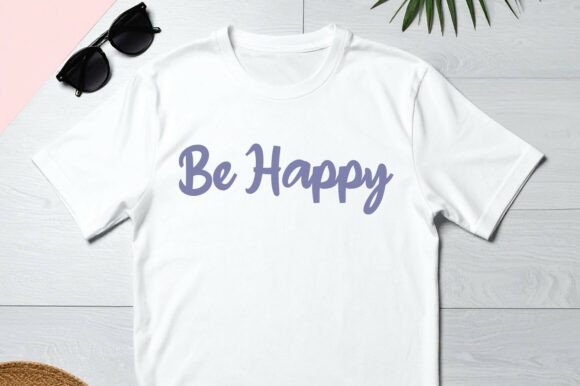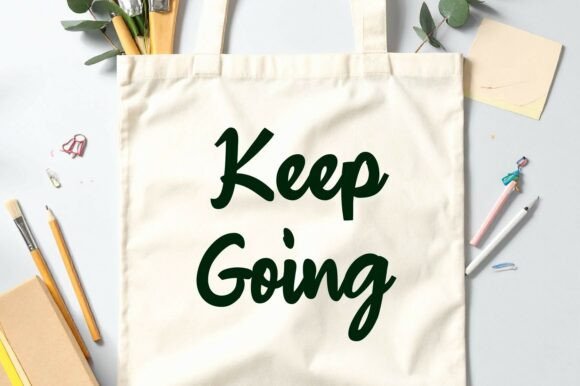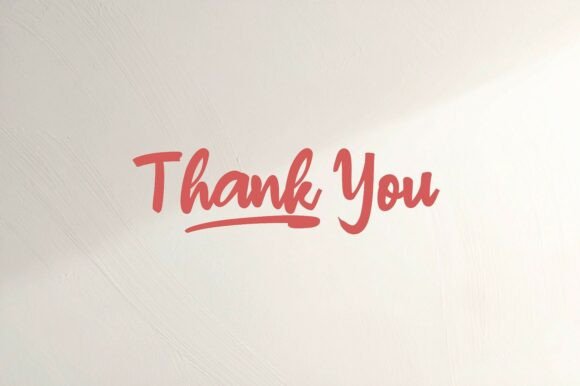
Have you ever stumbled upon a font that makes you smile, and suddenly, a design idea clicks into place? For many creatives, discovering the perfect font can be a game-changer. And for those who crave a playful, modern touch, the Ahay Hore Font is sure to bring a breath of fresh air to their work.
This charming script font is designed to add a lighthearted and warm feel to any text. Whether you’re crafting invitations, branding materials, or social media graphics, the Ahay Hore Font’s flowing lines and casual elegance make it an ideal choice for a variety of creative projects. For designers, this font offers a valuable asset – the ability to convey a friendly and approachable tone, perfect for building connections with their audience.
Key Features of Ahay Hore Font
- Font Family: Ahay Hore is a unique and elegant script font designed to add a touch of sophistication to various designs.
- Character Set: Includes a comprehensive set of characters, including uppercase and lowercase letters, numbers, and punctuation marks.
- Unique Characteristics: Features a flowing, handwritten style with subtle flourishes and connections between letters, making it perfect for creative and artistic designs.
- Font Weight: Available in a single weight, providing a consistent and elegant look across all text.
Designer Review: Ahay Hore Font
When I first laid eyes on the Ahay Hore Font, I was immediately drawn to its unique and exotic charm ✨. The font’s intricate details and ornate design elements evoke a sense of luxury and sophistication, making it perfect for high-end branding and marketing materials. The font’s versatility also allows it to be used effectively in a variety of contexts, from print to digital applications.
One of the standout features of the Ahay Hore Font is its rich and vibrant color palette ✨. The font’s bold and striking colors add a touch of drama and flair to any design, making it an excellent choice for designers looking to make a statement. Additionally, the font’s seamless integration with other design elements ensures a cohesive and polished look.
- ⚠️ Limited character set: The Ahay Hore Font may not be as extensive as other font options, which could limit its usability in certain contexts.
- ⚠️ Compatibility issues: Some users may experience compatibility issues with certain software or operating systems, which could hinder the font’s effectiveness.
Overall, the Ahay Hore Font is a stunning and elegant addition to any design arsenal ✨. While it may have some limitations, its unique charm and versatility make it an excellent choice for designers looking to add a touch of luxury and sophistication to their work.
For best results, use Ahay Hore Font for creative projects that require unique and exotic typography.
– Headlines and titles
– Logos and branding
– Travel and cultural-themed designs